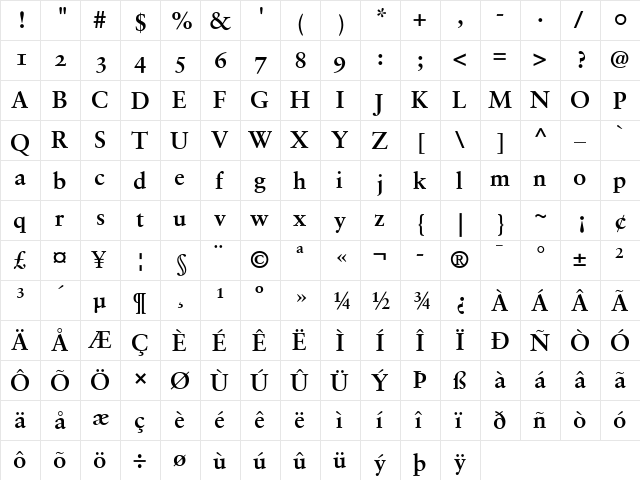
Sabon RomanOsF Bold
Sabon RomanOsF takes a measured approach to typography — its balanced proportions and neutral character make it a reliable workhorse for both digital and print work. The heavy weight commands attention and anchors typographic hierarchies.